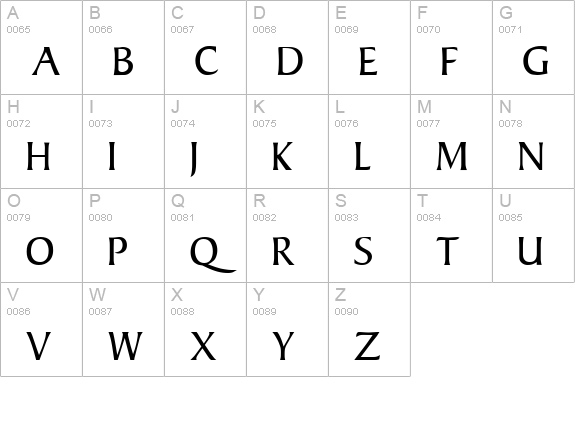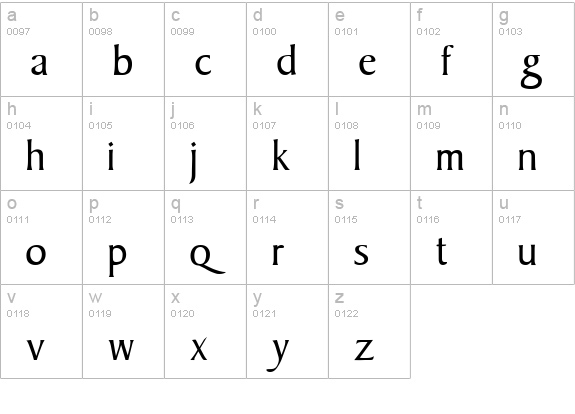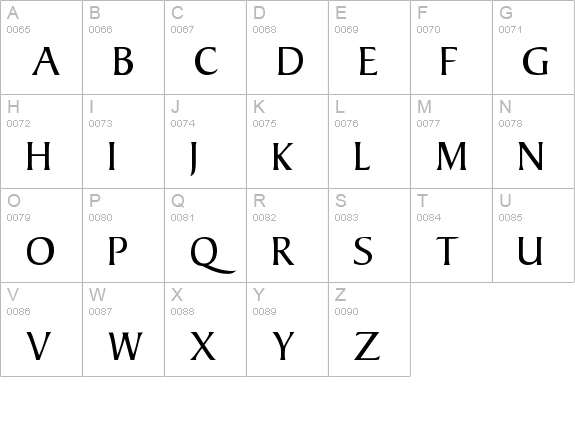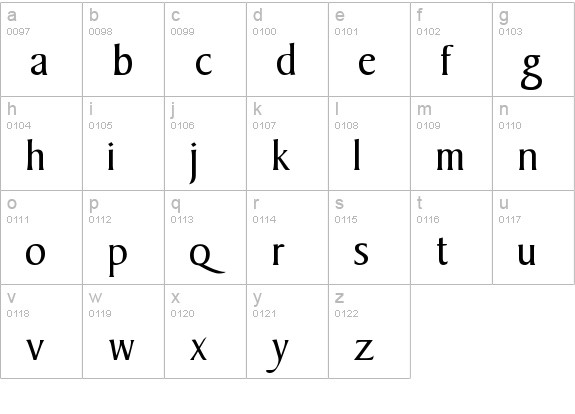
Baker Regular Font Details
Baker Regular is the standard, neutral variant in the Baker typeface family \xE2\x80\x94 well suited to general body text, paragraphs, and standard typographic work.
Baker Regular is a versatile and elegant typeface that exudes timeless sophistication. With its clean lines and classic appeal, this font is perfect for a wide range of projects, from branding to editorial design. The balanced proportions and graceful letterforms of Baker Regular make it a go-to choice for designers looking for a reliable and polished typeface. The best part? Baker Regular is available for free download at FontsMarket.com! Whether you're working on a personal project or a professional assignment, this font is a must-have in your toolkit. Don't miss out on the opportunity to enhance your designs with the beauty and versatility of Baker Regular. Download it today and elevate your typographic game!